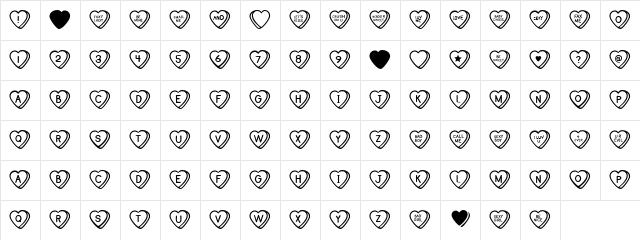
Sweet Hearts BV Regular
Design Context for Sweet Hearts BV Typeface
Sweet Hearts BV is a composed and adaptable typeface that performs quietly and consistently across a wide range of design contexts.